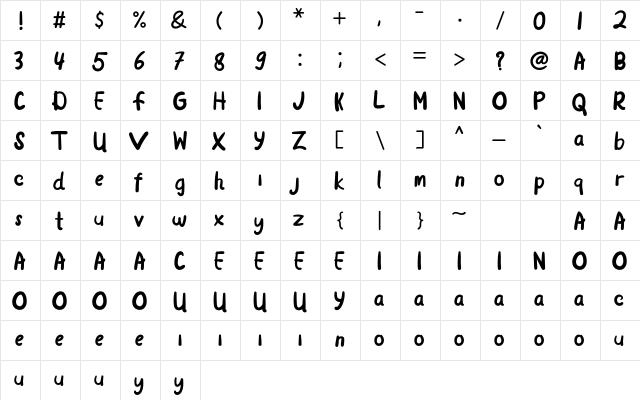
Note And Notes Regular
Design Context for Note And Notes Typeface
Note And Notes is a composed and adaptable typeface that performs quietly and consistently across a wide range of design contexts.